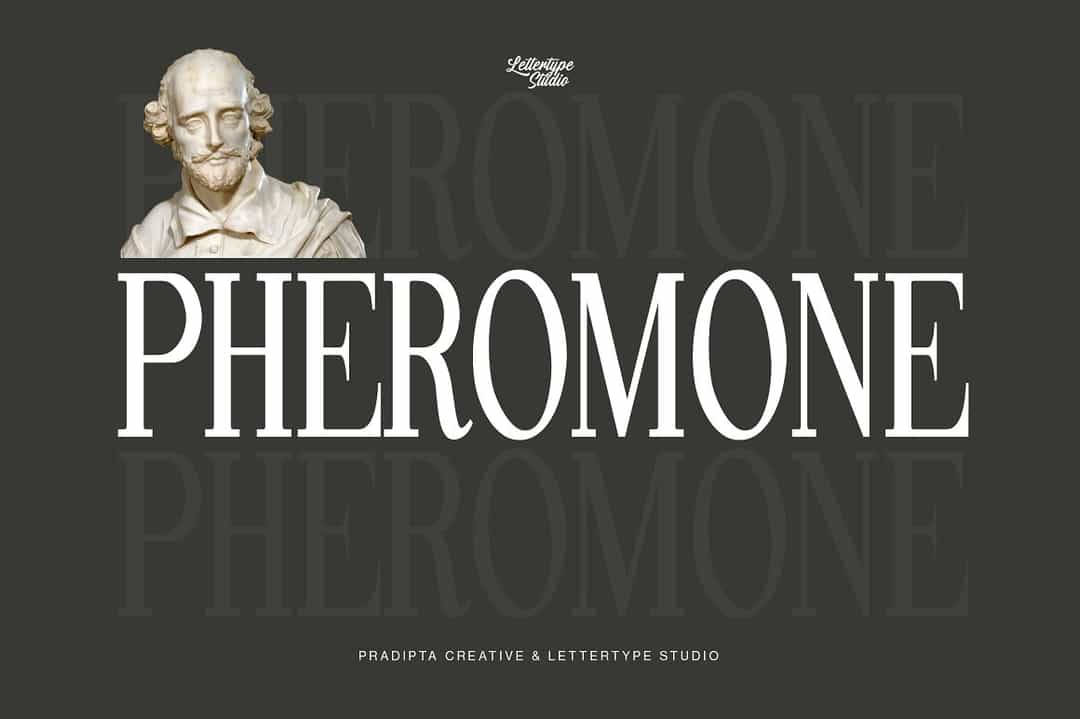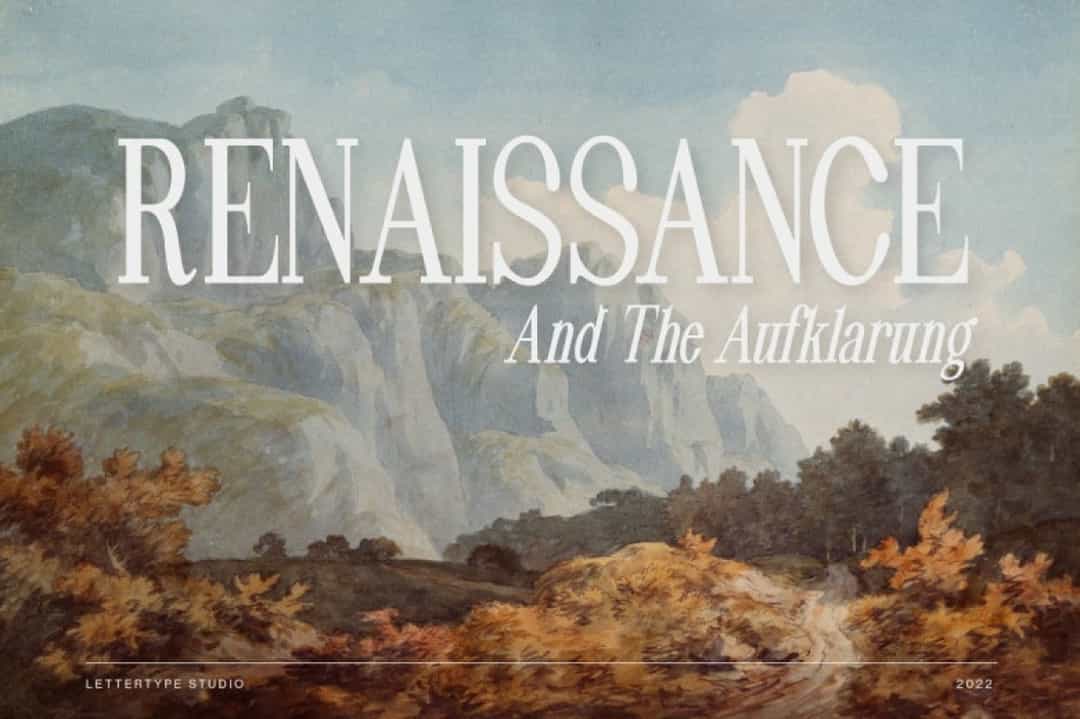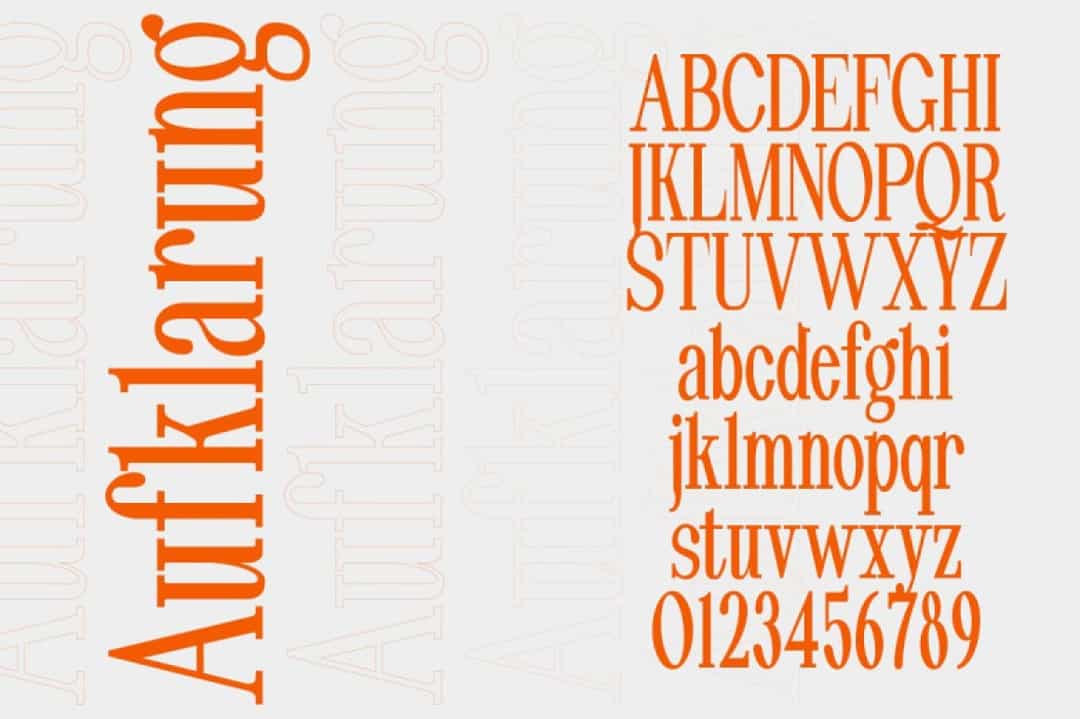
Pheromone is our most acclaimed contemporary serif typeface and can serve as an eye-catching headline font. Pheromone stands out from its competitors by virtue of its condensed style; making it ideal for use as a headline font. Pheromone will help make your brand or project memorable with its traditional yet timeless appearance that stands out in any crowd.